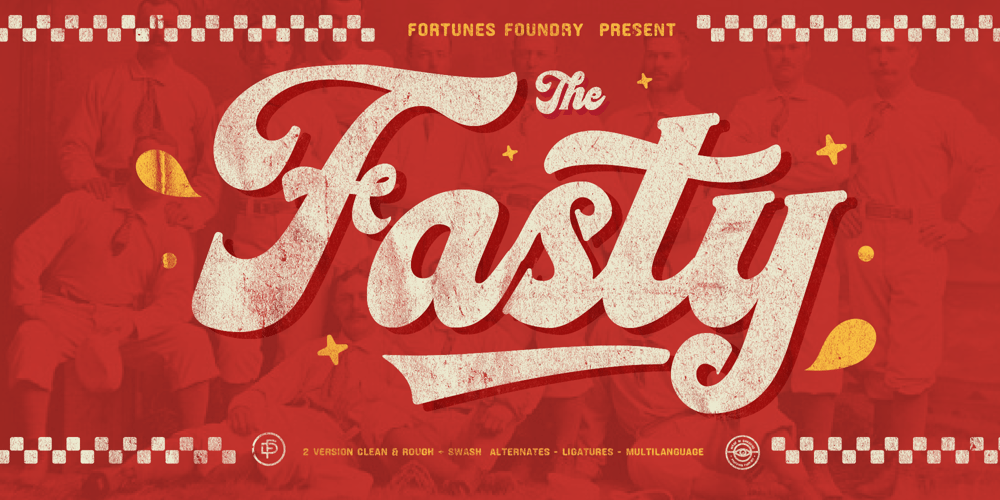
Fd Fasty Font Family was designed by Ramandhani Nugraha and published by Fortunes Co. Fd Fasty contains 5 styles and family package options. A script font with a baseball theme brings the excitement and nostalgia of America’s favorite pastime to the forefront. Its flowing, cursive strokes emulate the graceful motion of a pitcher’s throw or a batter’s swing. The font’s design often incorporates elements like baseball seams, bats, or caps, adding a playful yet authentic touch. Each letter connects seamlessly.This typeface is perfect for team logos, event invitations, and merchandise, capturing the spirit of the game. Its classic yet sporty aesthetic evokes memories of summer games, roaring crowds, and the timeless charm of baseball.